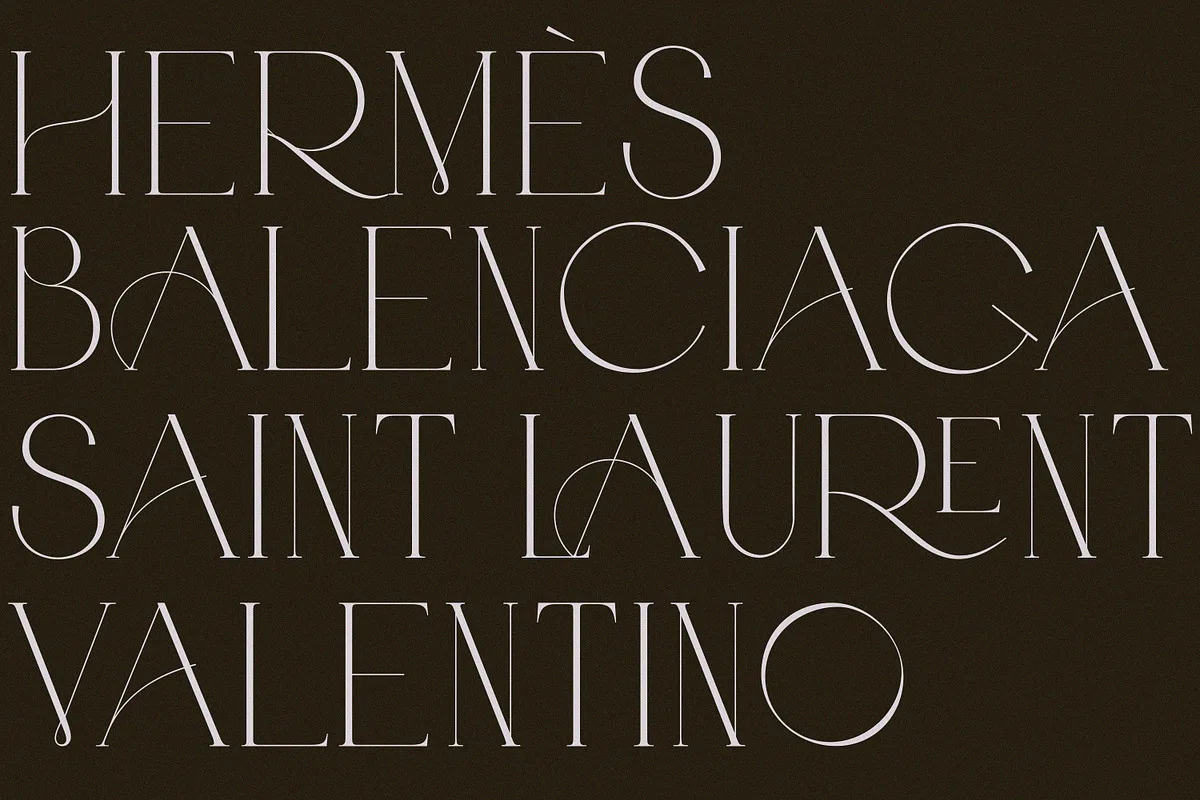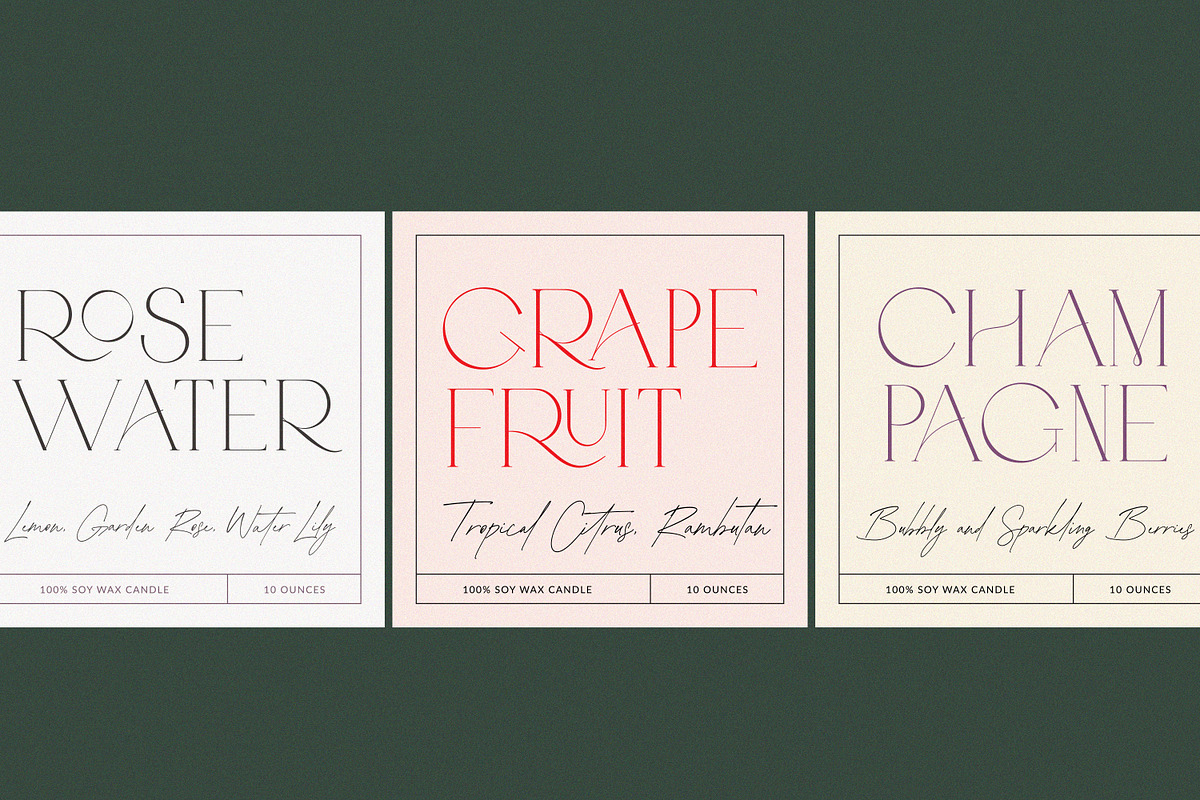
Abramo is not one font but two, sold together as a duo by the PeachCreme studio: an all-caps serif and a script cut to sit alongside it. That pairing is the whole point of the release — the serif carries the structure and the script carries the warmth, and because both were drawn by the same hand they share a spine angle and a stroke weight that make them look deliberate together rather than merely adjacent.
| Abramo Serif | Abramo Script | |
|---|---|---|
| Character | All-caps modern serif | Flowing connected script |
| Best used for | Logotypes, headings, labels | Names, signatures, accents |
The smooth curves of the serif give it a distinctly feminine feel, which is why Abramo turns up so often on beauty branding, boutique logos, wedding stationery and social media templates. Used on its own the serif is quite formal; drop a line of the script underneath and the whole lockup relaxes.
Pairing the serif with the script
The duo is easiest to use if you give each face one job. Set the serif in all caps with generous letter-spacing for the brand name or the section heading, then use the script once — for a single word, a tagline or a signature — and never for a full sentence at small size, where connected scripts lose legibility fast. A common mistake is setting both at the same size; the script usually needs to be noticeably larger to feel balanced against the caps.